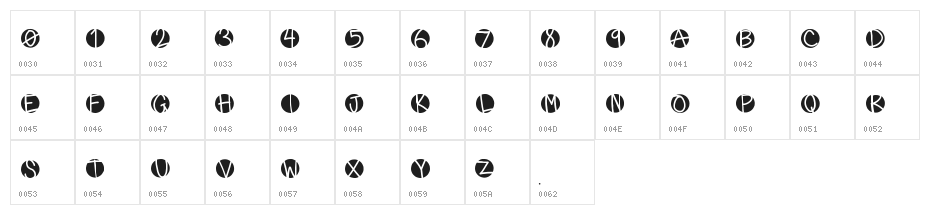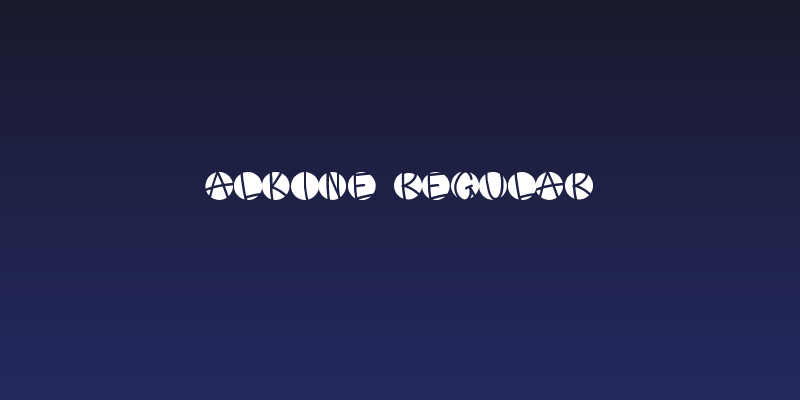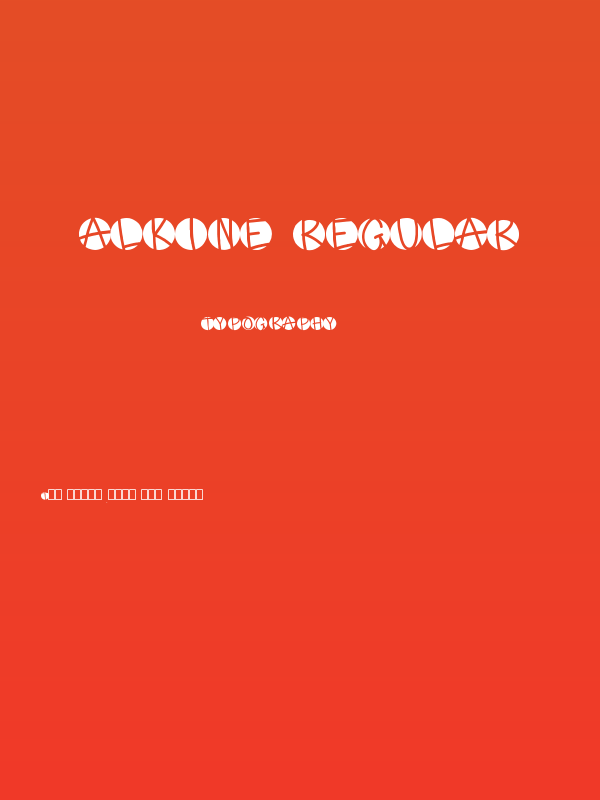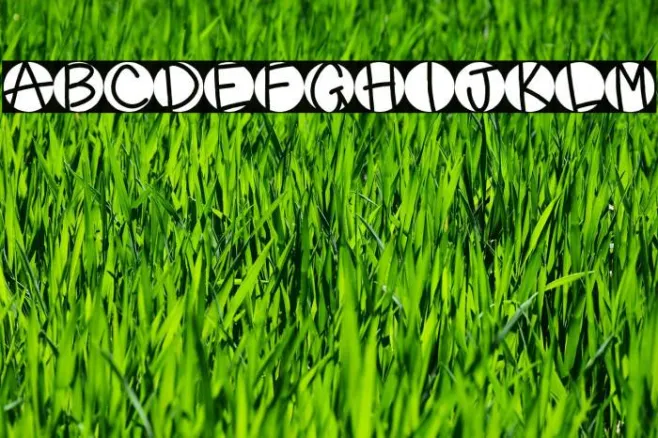
Alkine Regular Font
Alkine Regular Description
This font features a bold and geometric style with each character enclosed within a circular form. The design incorporates a modern and abstract aesthetic, with negative space cleverly used to define each letter. The uppercase and lowercase letters maintain a consistent circular boundary, creating a cohesive and unified appearance. Numbers and special characters follow the same design principles, ensuring uniformity across all elements. This font's unique style makes it stand out, offering a visually striking option for creative projects.
| Use Case | Logos, Posters, Branding |
| Proposed Projects | Ideal for branding, logos, posters, and any project requiring a modern and artistic touch. |